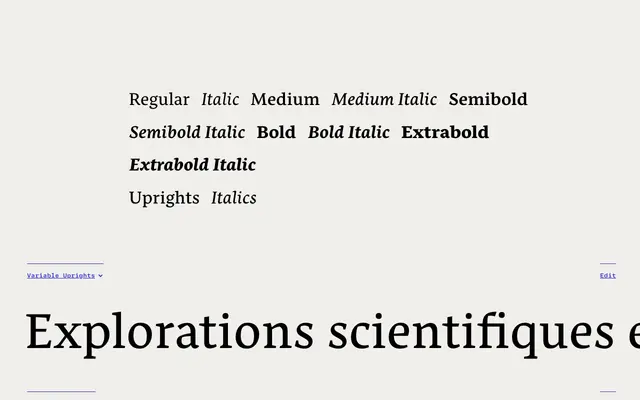
Nassim Latin
Rosetta · Titus Nemeth · 2011
A text serif by Titus Nemeth designed to pair with Nassim Arabic, covering over 110 languages with calligraphic modulation and asymmetric serifs across five weights.
Designed by Titus Nemeth and released in 2011, Nassim Latin is built for long-form reading in multilingual contexts where Latin and Arabic scripts share a page. Its asymmetric serifs and calligraphic stroke modulation give the text a lively rhythm without straying into decorative territory. The family spans five weights with true italics, variable fonts and a full OpenType feature set including small caps, ranging numerals, fractions and case-sensitive punctuation, making it suited to everything from academic publishing to digital news.
Nassim Latin is a text serif with asymmetric serifs and calligraphic modulation derived from broad-nib pen usage, designed specifically to harmonise with Nassim Arabic in multi-script settings.